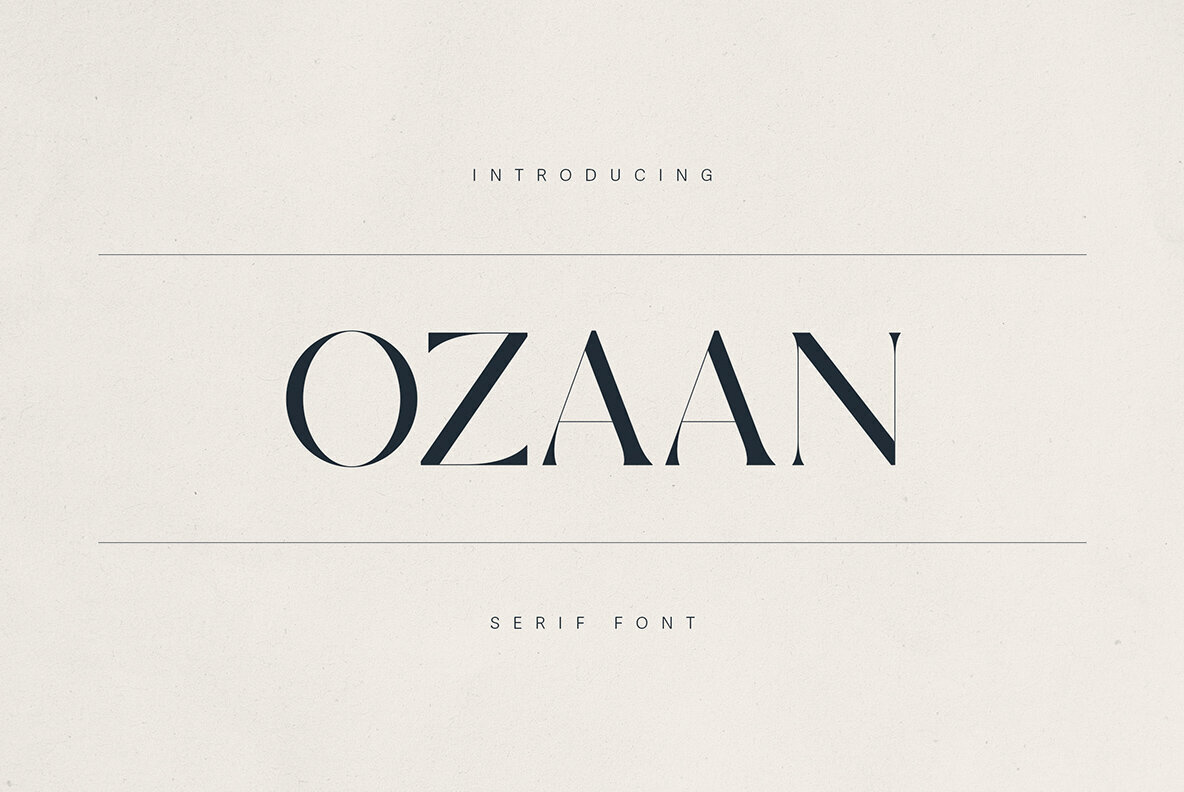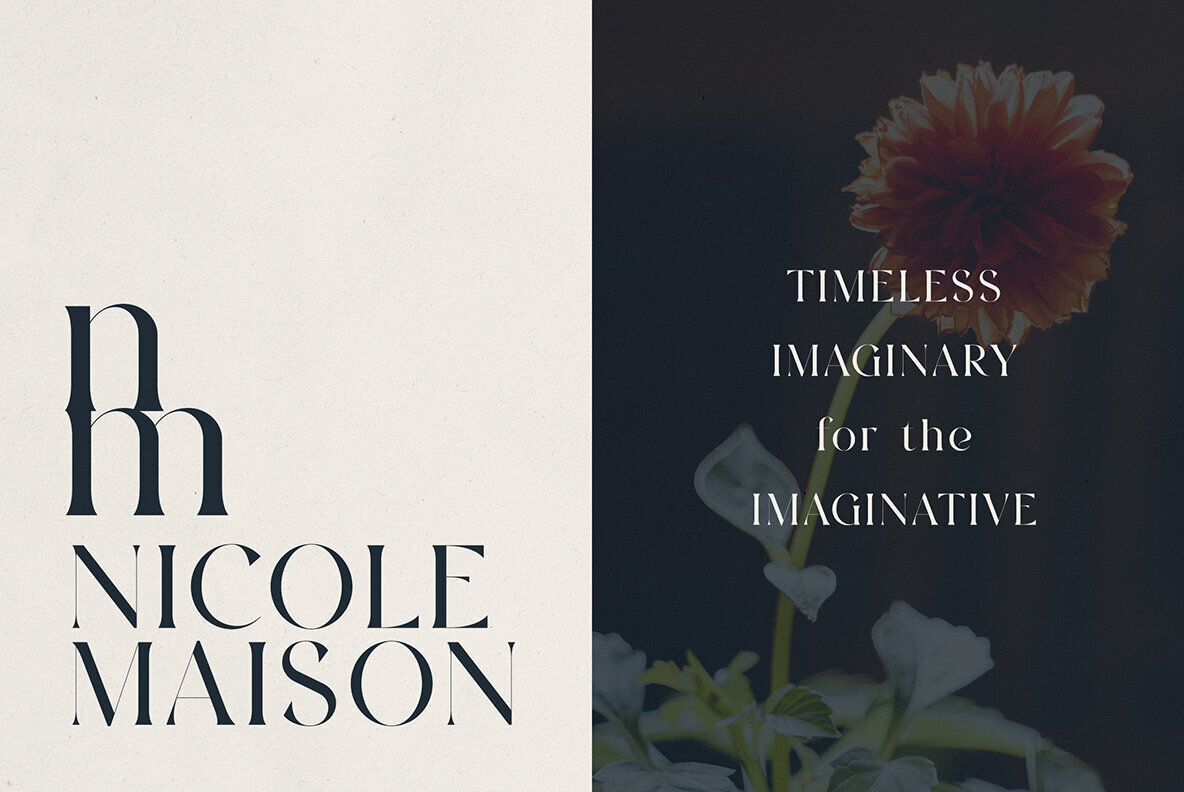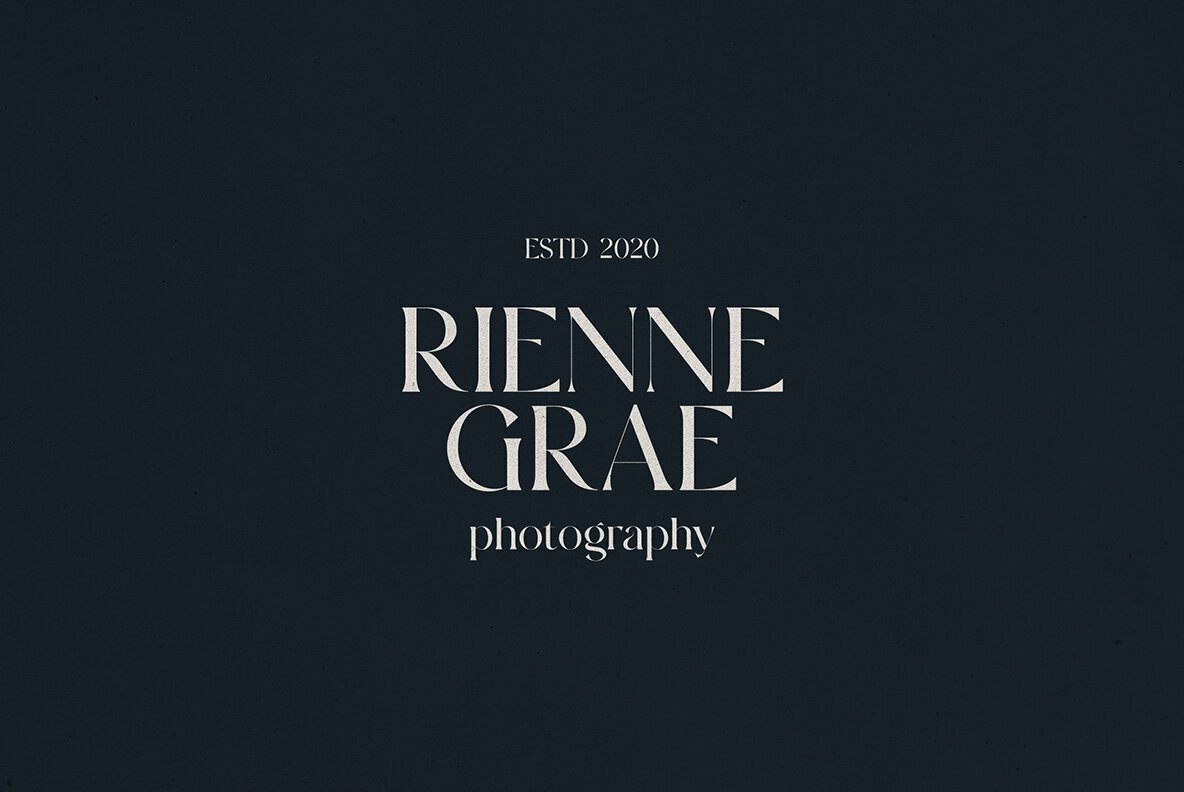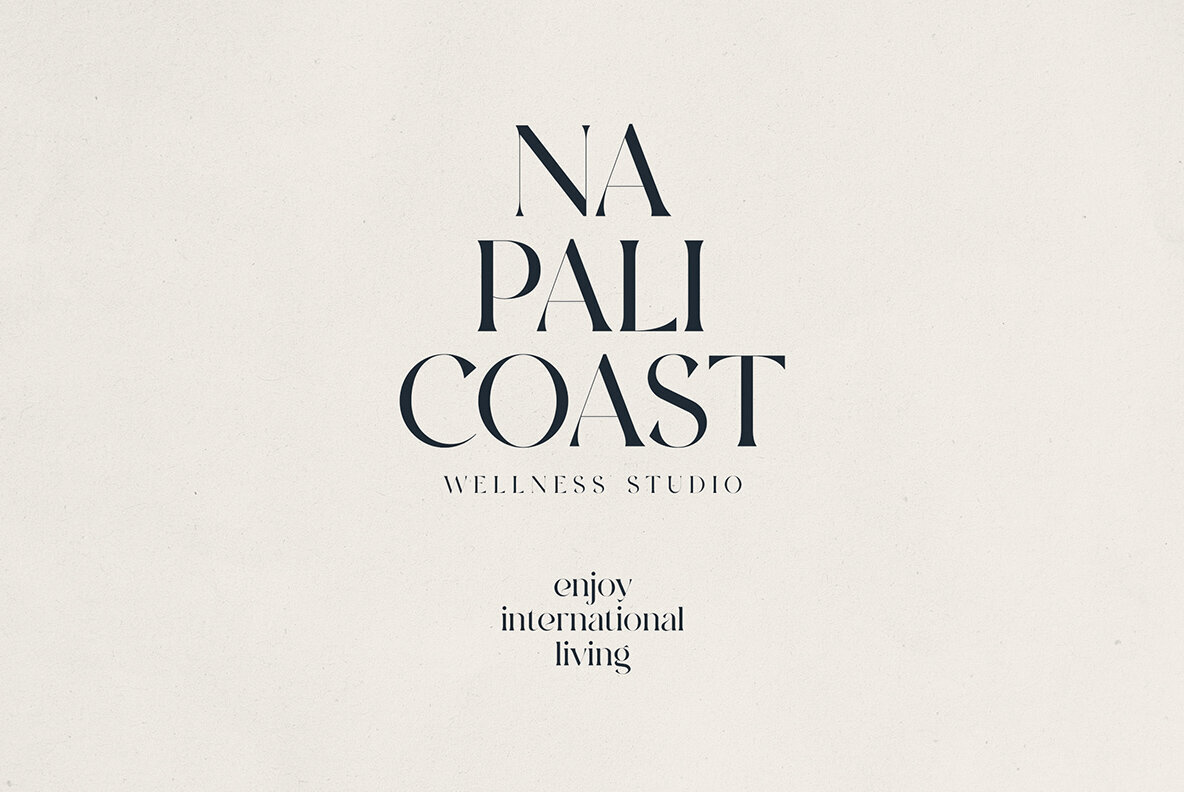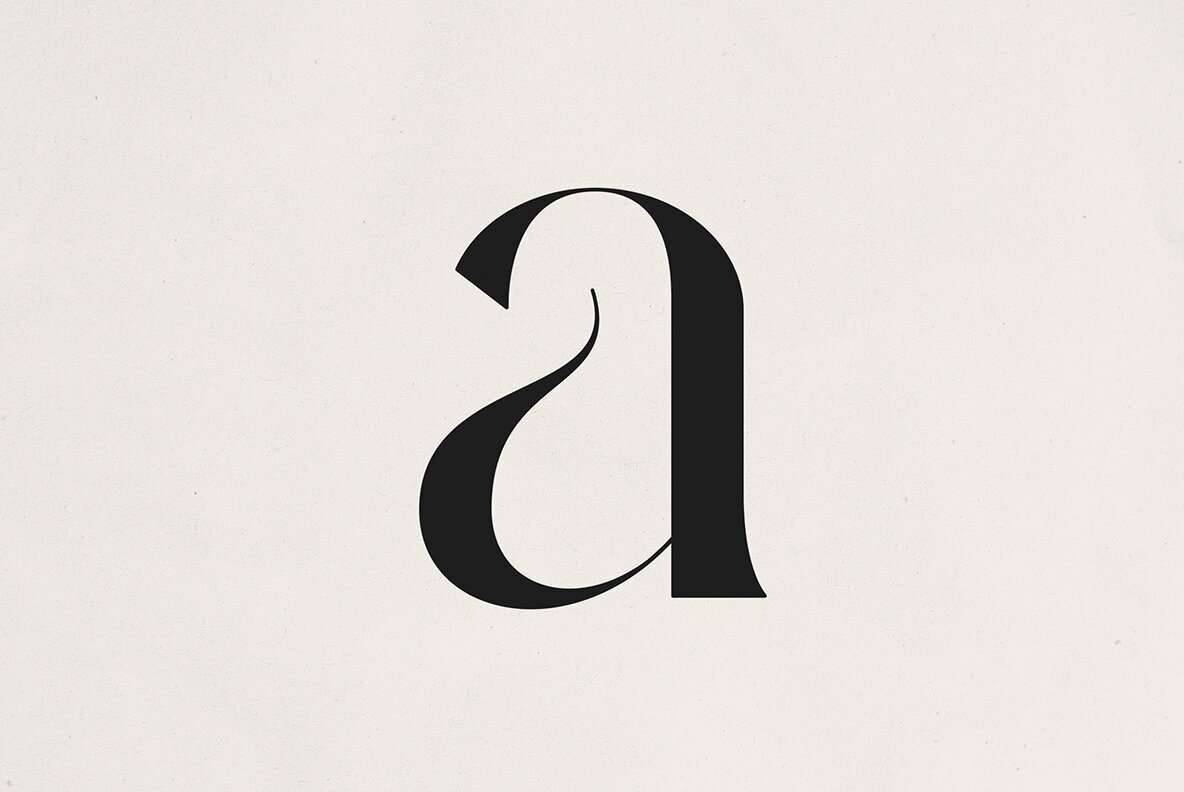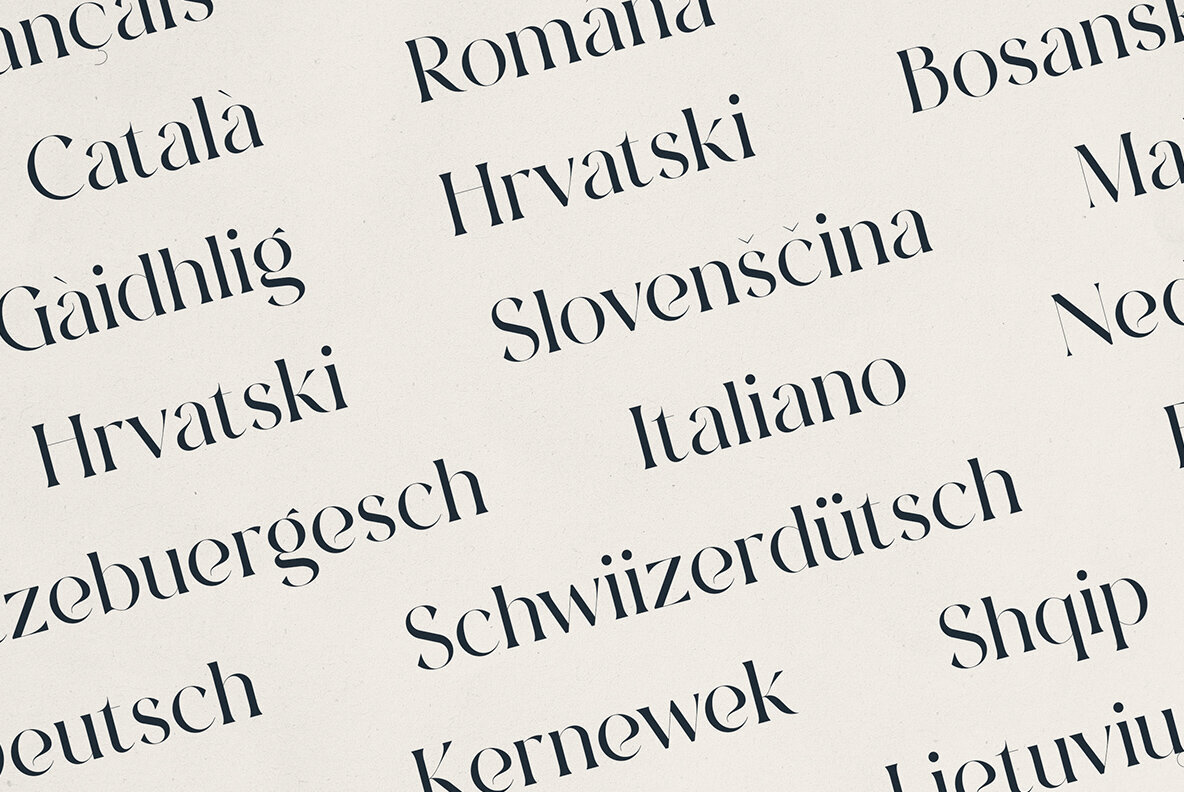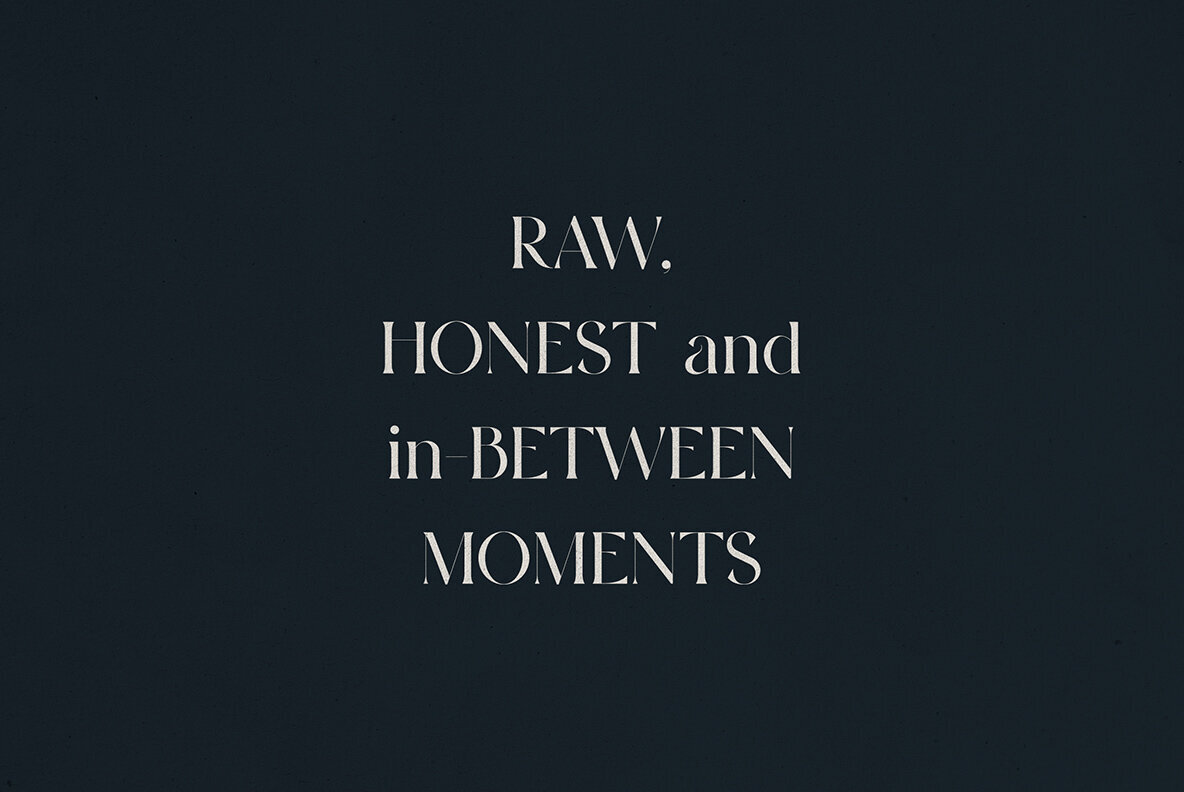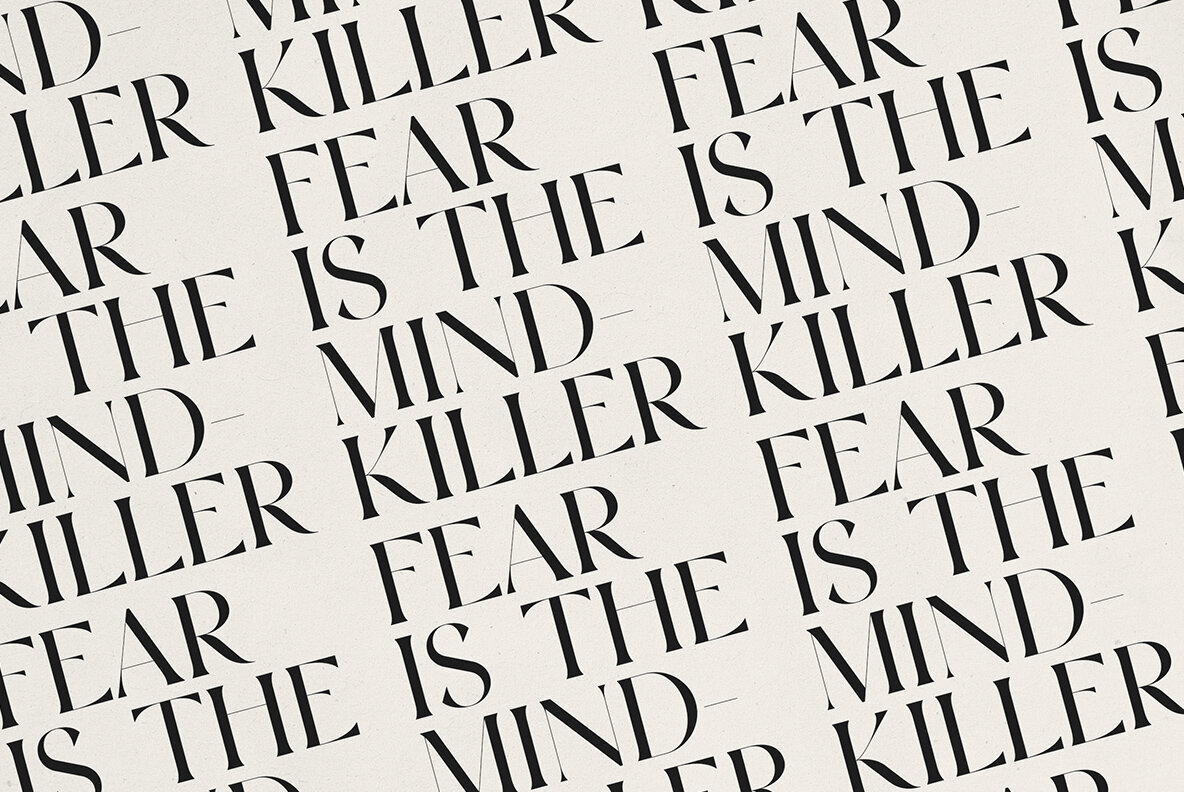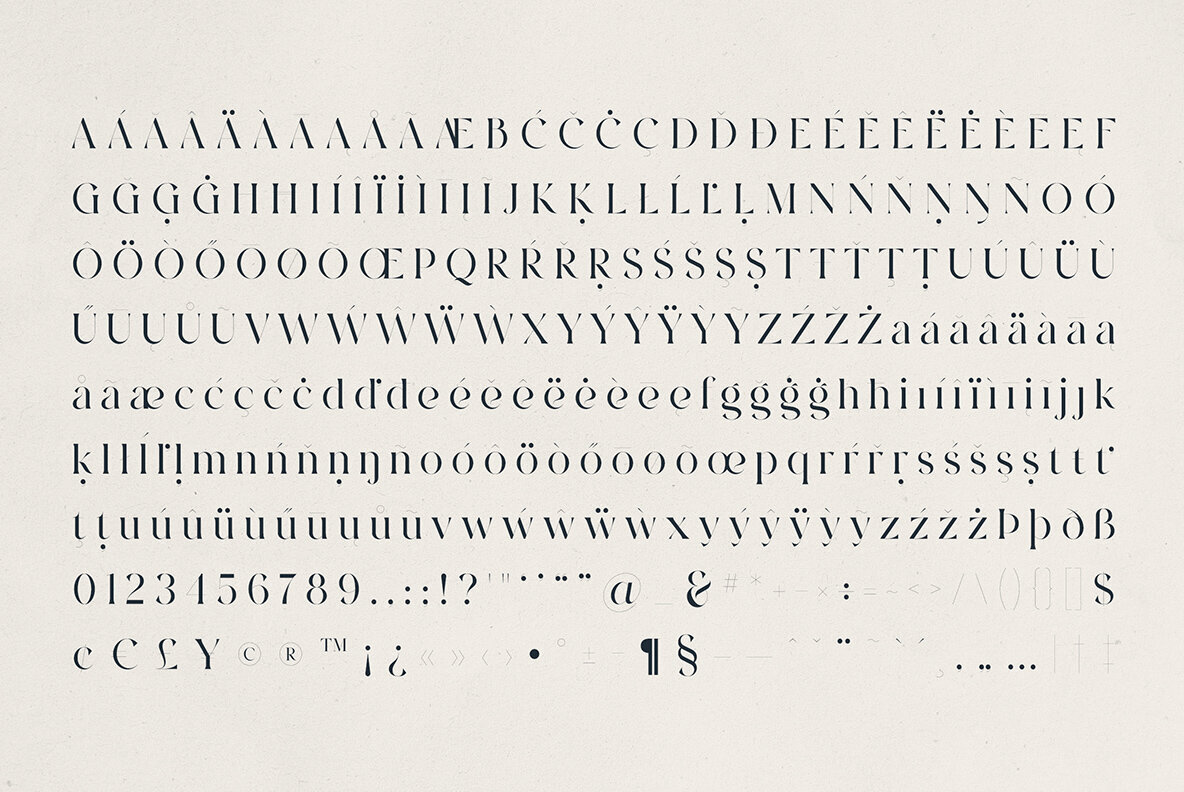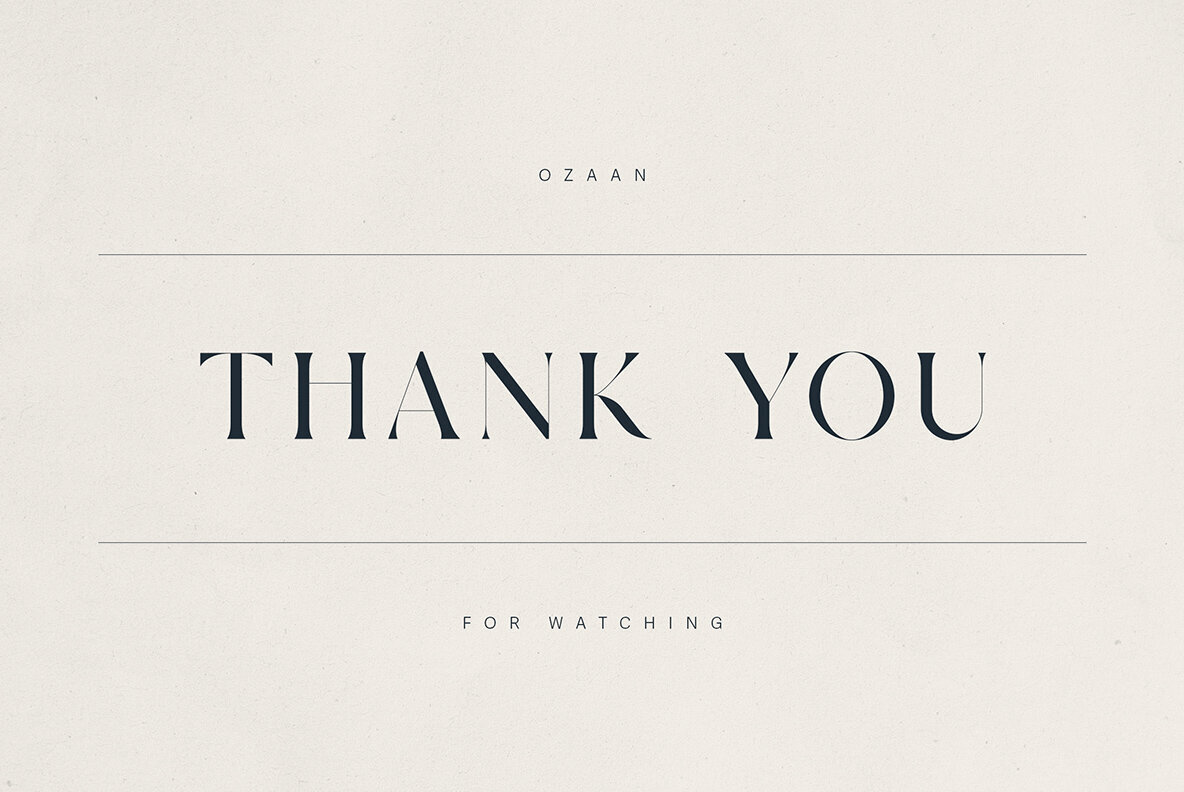
OZAAN Font
Ozaan
OZAAN combines elegance and modern minimalism in a high-contrast serif font, perfect for elevating your visual storytelling. With sharp serifs and gracefully tapered stems, this typeface blends classic typography aesthetics with luxurious curves. Ideal for fashion branding, editorial design, photography logos, upscale packaging, and lifestyle projects, OZAAN adds a refined touch to any creative endeavor. Designed for those who appreciate beauty and flexibility, OZAAN supports over 80 languages, offering a delicate balance of thick and thin strokes. These elements bring a high-end appeal to headlines, logos, and brand identities. Whether crafting for a boutique studio, luxury wellness brand, or artistic publication, OZAAN offers the sophistication and versatility needed to leave a lasting impression.OZAAN - A Sophisticated Modern Serif Font